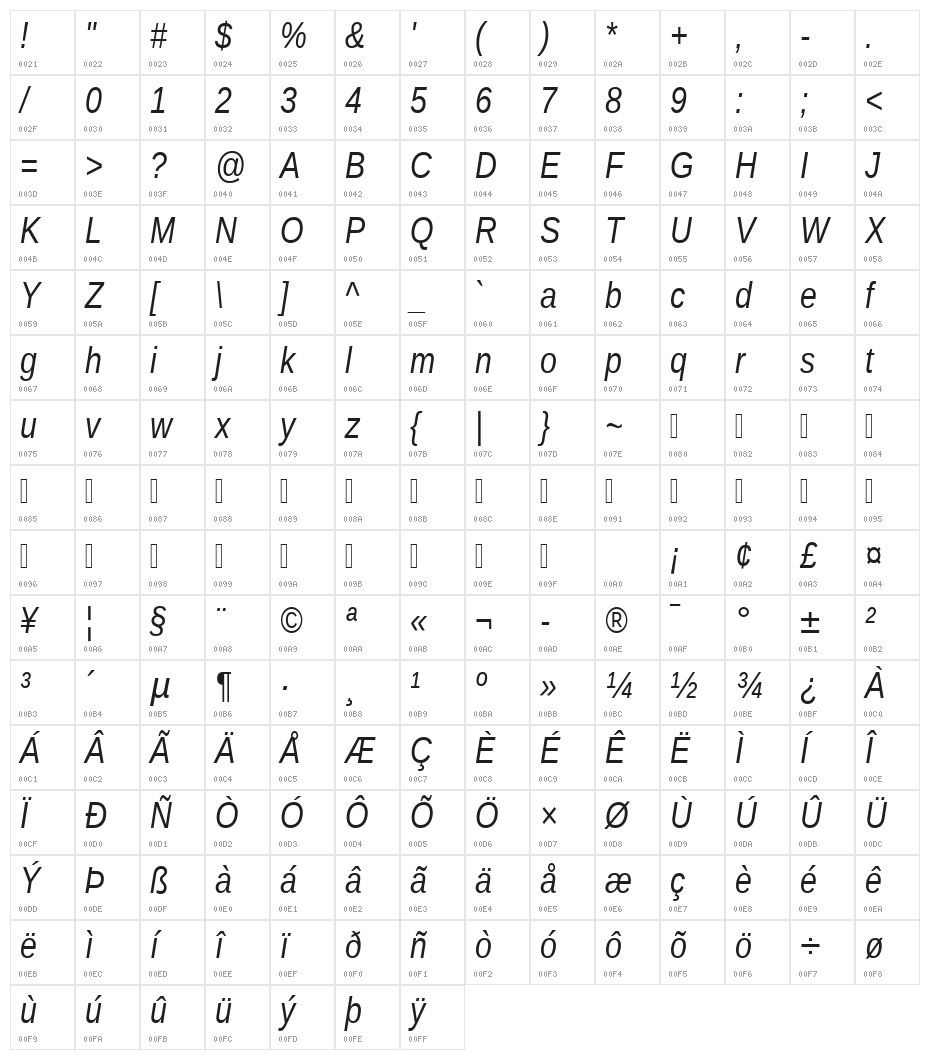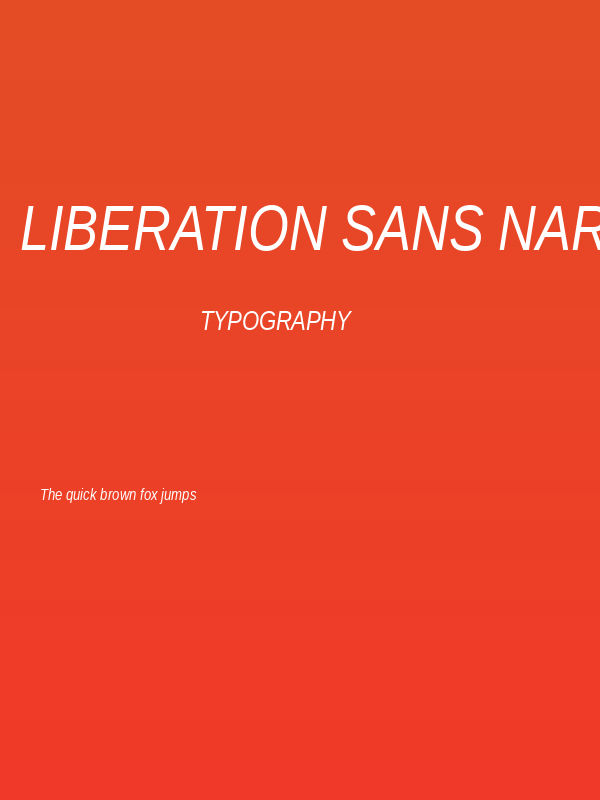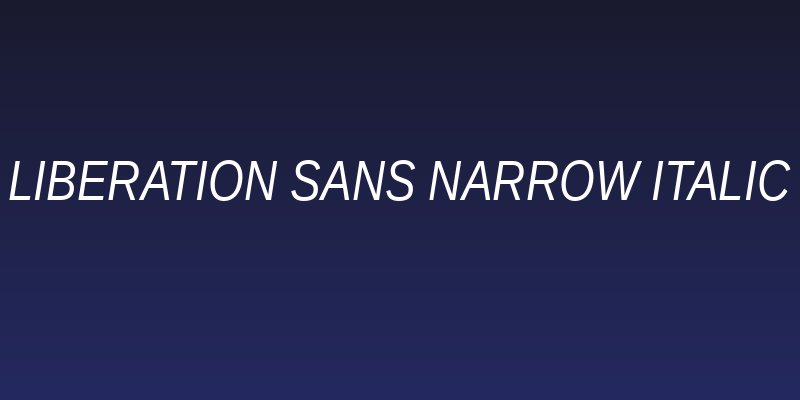
Liberation Sans Narrow Italic Font
Liberation Sans Narrow Italic Description
This font features a clean and modern sans-serif design with a narrow and italicized style. The letters are slightly condensed, giving it a sleek and streamlined appearance. The italic slant adds a dynamic and forward-moving feel, making it suitable for contemporary designs. The strokes are consistent with medium contrast, providing clarity and readability. The font includes a full set of uppercase and lowercase letters, numerals, and a variety of special characters, making it versatile for various applications.
| Proposed Projects | Ideal for use in modern branding, editorial design, advertising, and web design projects where a clean and dynamic look is desired. |